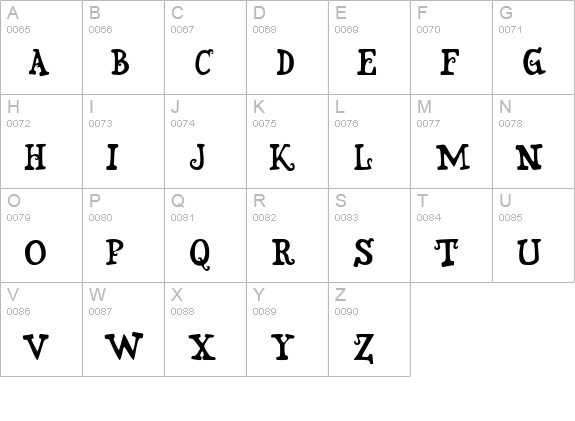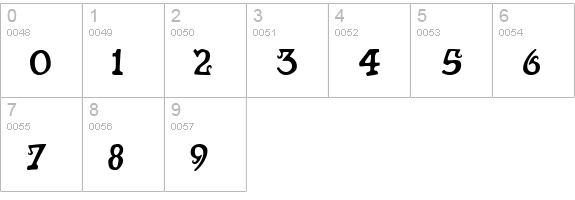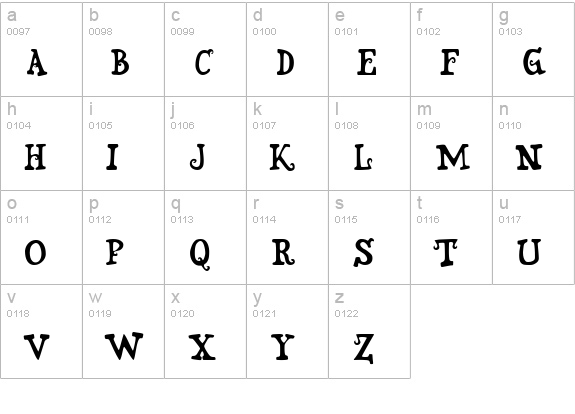
Snidely Font Details
Introducing Snidely, a captivating and versatile font that exudes elegance and sophistication. Designed with meticulous attention to detail, Snidely boasts a perfect balance between modernity and classic charm, making it an excellent choice for a wide range of design projects. With its clean lines and graceful curves, Snidely effortlessly captures attention and adds a touch of refinement to any text. Its sleek and stylish appearance is perfect for both print and digital media, whether you are designing a logo, branding materials, website headers, or social media graphics. But what sets Snidely apart is not just its exceptional aesthetics, but also its accessibility. We are delighted to announce that Snidely is available for free! Yes, you read that right - this remarkable font can be freely downloaded at FontsMarket.com, making it accessible to designers, creatives, and typography enthusiasts alike. Snidely offers a wide range of weights and styles, allowing you to experiment and find the perfect fit for your project. Whether you prefer a bold and impactful statement or a subtle and understated elegance, Snidely has got you covered. So why wait? Experience the sheer beauty and versatility of Snidely today. Download it for free at FontsMarket.com and let your creativity soar to new heights. With Snidely, your designs will undoubtedly leave a lasting impression and stand out from the crowd.